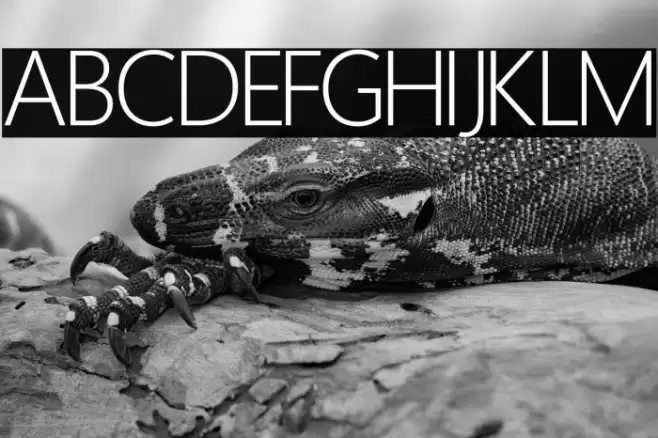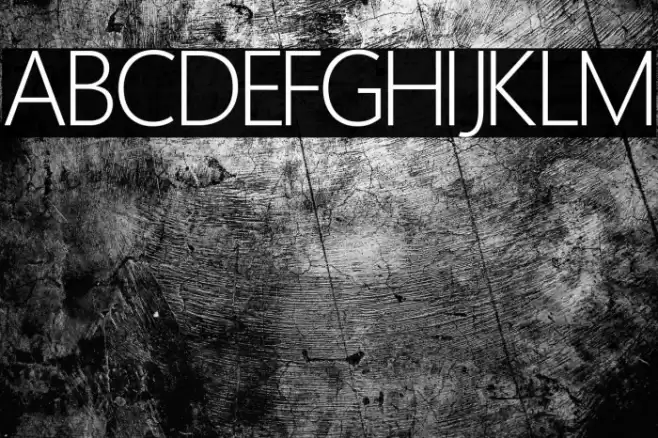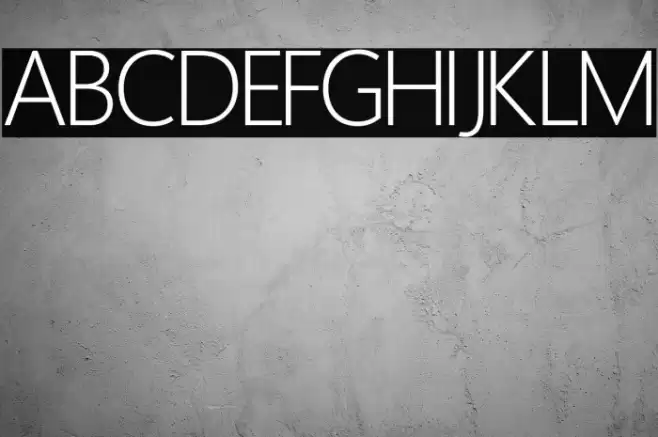
Homizio Nova Light Font
Homizio Nova Light Description
This font exhibits a clean and modern sans-serif style with a light weight, making it ideal for minimalist design projects. The characters are well-proportioned with a consistent stroke width, contributing to its readability and elegance. The uppercase and lowercase letters maintain a uniform height, while the numerals are clear and straightforward. Special characters are designed with simplicity, enhancing the font's versatility. Its overall appearance is sleek and professional, suitable for a variety of digital and print applications.
A modern, light sans-serif font with clean lines and excellent readability from Uncategorized fonts.
- Weight: Light
Homizio Nova Light UPPERCASE
Homizio Nova Light LOWERCASE
Homizio Nova Light OTHER CHARS